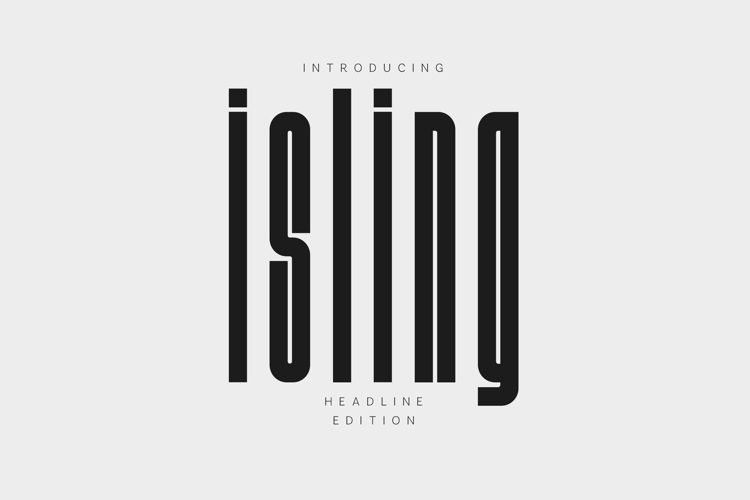
Isling Condensed Headline Sans Serif Font
Isling – Headline Edition is a tall, condensed sans serif font designed for maximum visual impact. With its narrow proportions, strong vertical rhythm, and clean modern construction, Isling is built to command attention in headlines, titles, and bold typographic layouts.
This font excels in editorial design, posters, branding, magazine covers, fashion layouts, music artwork, and modern advertising. Its compressed structure allows designers to fit more text into tight spaces while maintaining clarity, strength, and a distinctive contemporary aesthetic.
Isling is ideal for designers who want striking, high-contrast typography that feels modern, confident, and unapologetically bold.